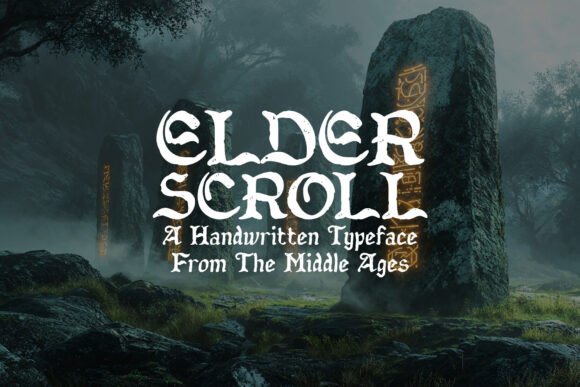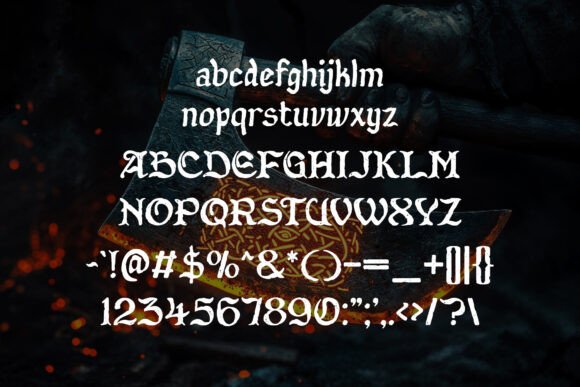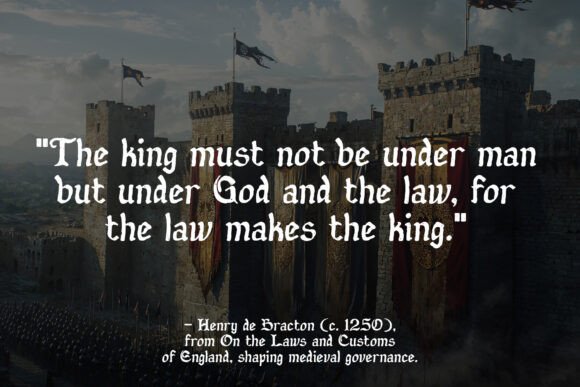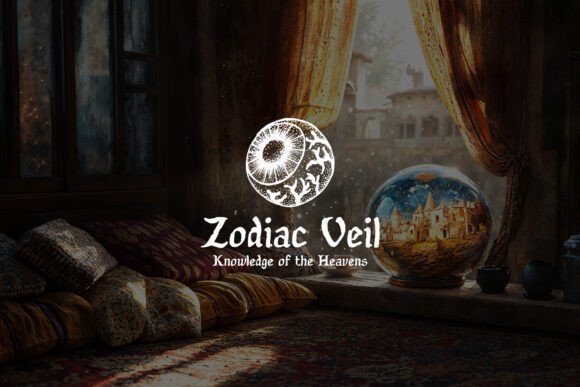
Elderscroll Font
About the Elderscroll Font
Experience the unique personality of Elderscroll Font, a font designed for impact. Step into a world of forgotten tomes and legendary tales with Elder Scroll, a masterfully crafted handwritten typeface inspired by the Middle Ages. Designed to evoke the mystique of ancient manuscripts, weathered scrolls, and forgotten kingdoms, this font is perfect for antique, medieval, Old English, and fantasy-based projects.
Elderscroll excels in headline treatments, short text blocks on posters or invitations, and branding applications requiring a touch of historical gravitas. Its unique texture works particularly well in projects related to fantasy literature, historical fiction, or gaming, adding an authentic, antique feel to logos and packaging. However, its highly textured nature makes it unsuitable for body text or UI elements; long passages would be difficult to read.
For optimal visual balance, pair Elderscroll with a clean sans-serif like Montserrat for a contemporary contrast, or a classic serif such as Garamond for a more traditional feel. A simple, geometric sans-serif could also provide a modern counterpoint, while a script font might enhance the feeling of old-world charm, but should be used sparingly.
The font’s personality is undeniably serious and elegant, conveying a sense of history and authority. Its handcrafted quality adds a layer of warmth and authenticity, making it perfect for brands that wish to project a heritage or legacy.
Elderscroll Font Usage Examples
Elderscroll Font Example